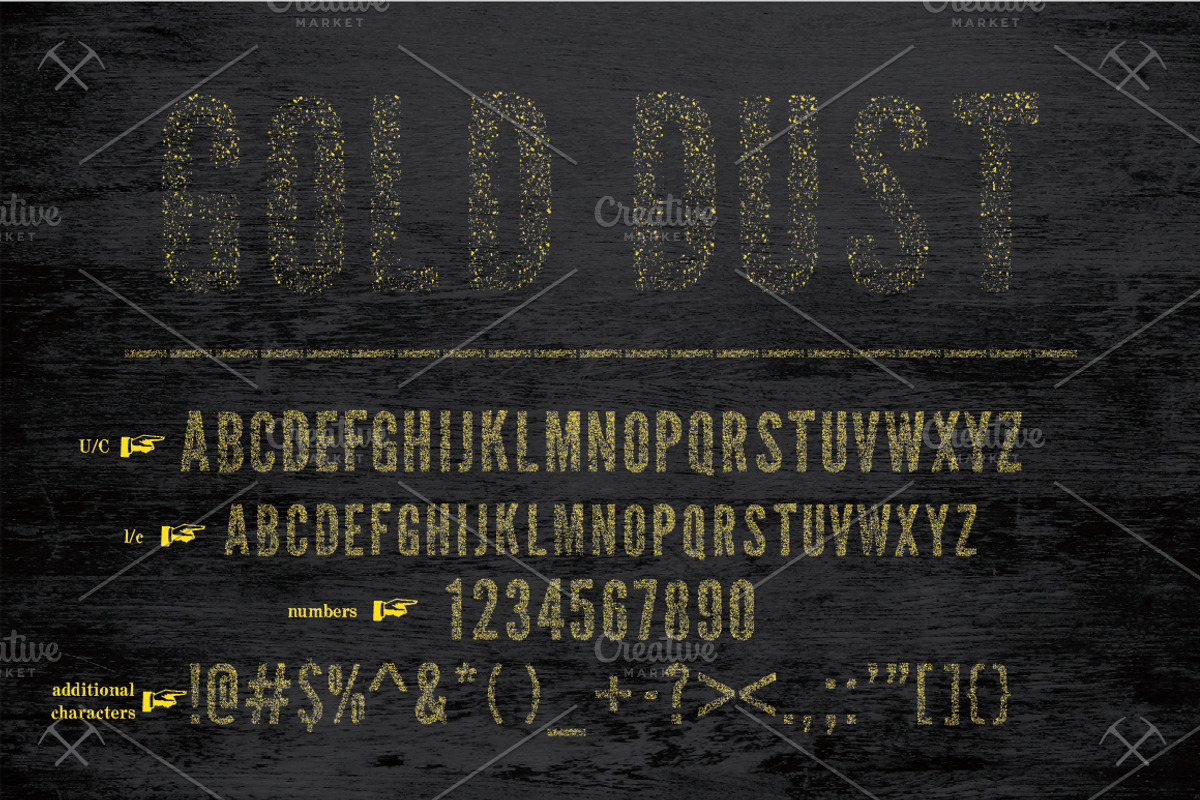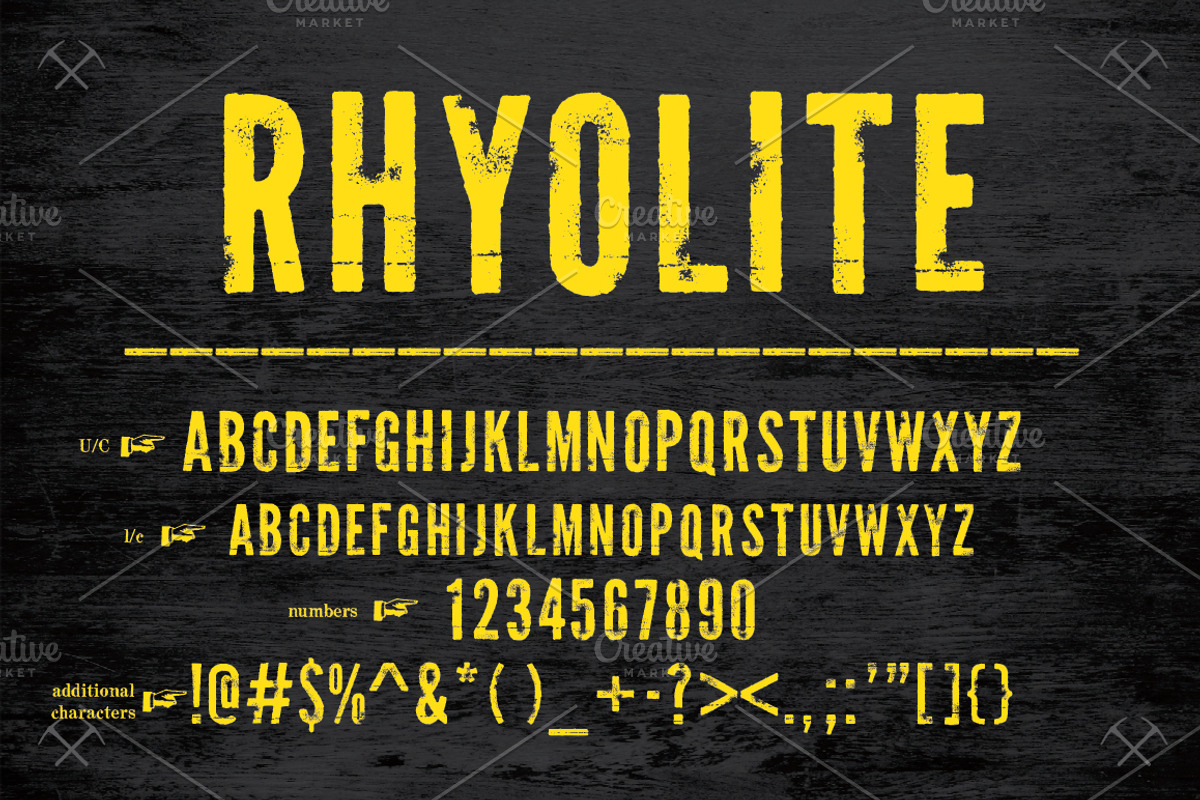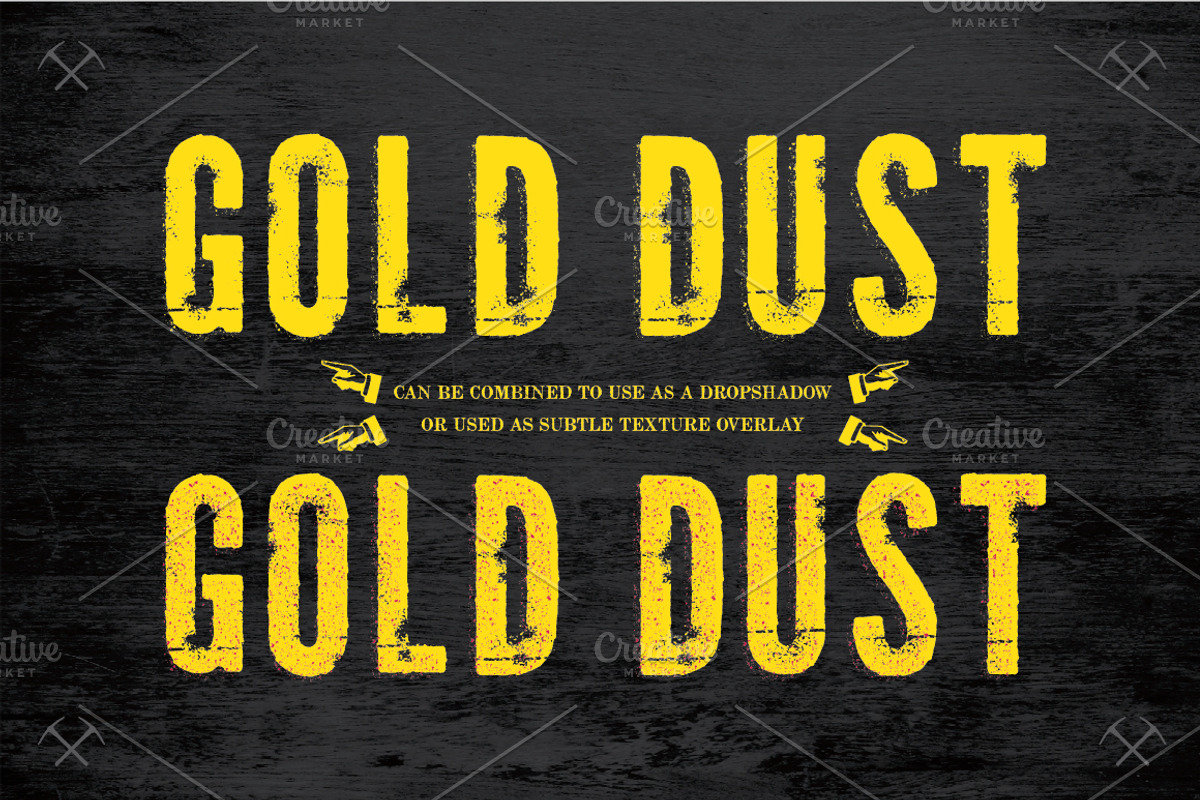
Rhyolite + Gold Dust Fonts
Rhyolite + Gold Dust Fonts by K Randall Wilcox is a font selected for branding, posters, packaging, typography.
- Each font has upper and lower case as well as numbers and special characters.
Rhyolite + Gold Dust Fonts by K Randall Wilcox fits naturally into Branding, posters, packaging, typography.